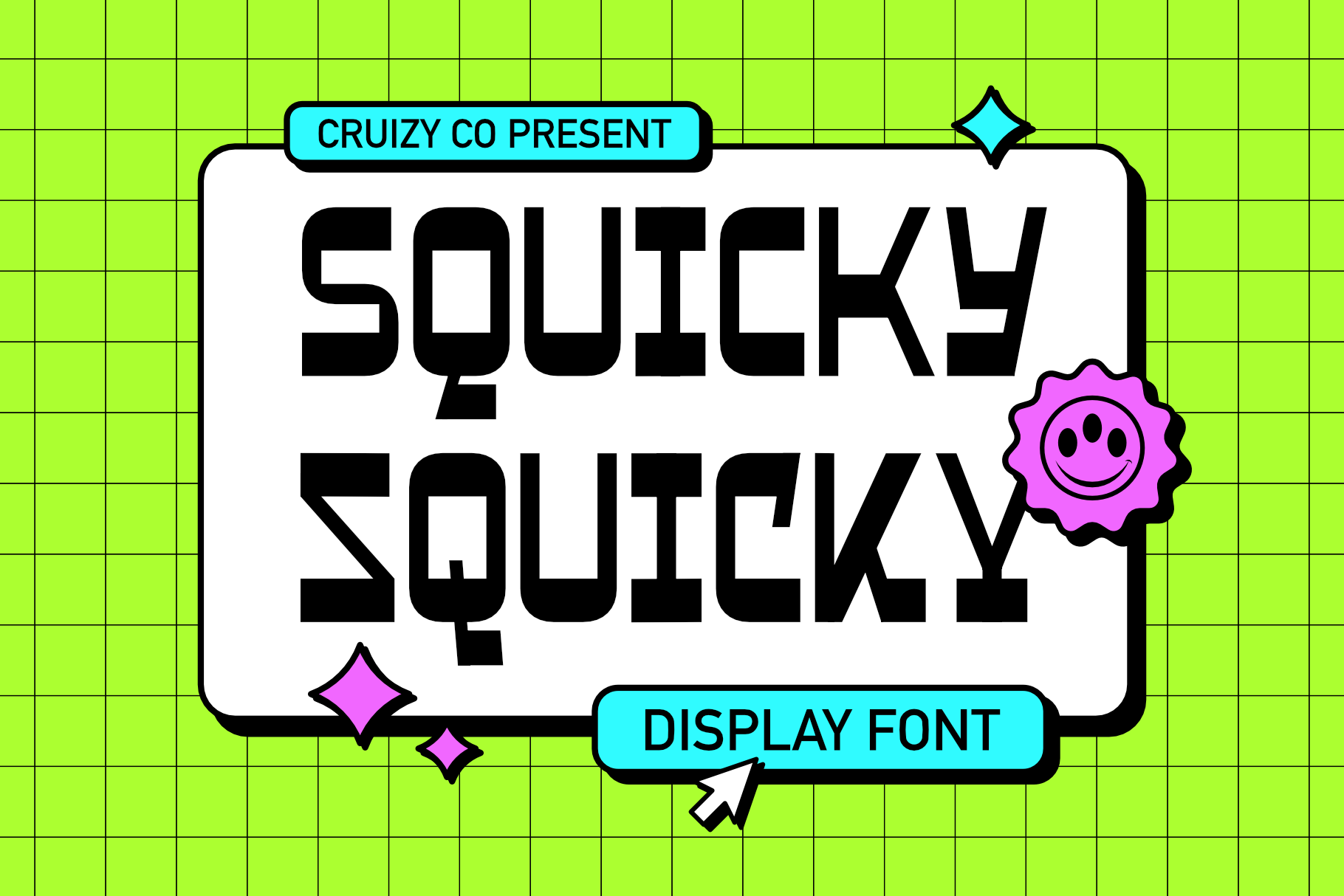
SQUICKY - Retro & Funky Display Font
Introducing SQUCKY, a dynamic font that perfectly blends retro vibes, funky flair, and techno edge. With its condensed, reverse contrast forms, SQUCKY stands out as a distinctive choice for eye-catching event posters, captivating book covers, and futuristic designs.
Whether you're channeling nostalgic 80s aesthetics or crafting sleek, modern techno visuals, this font brings an electrifying energy to any project. It’s the perfect companion for anyone looking to make a bold statement with a touch of retro and funky looks.
- All-Caps Character
- Symbol, Punctuation & Currency
- Stylistic Alternate